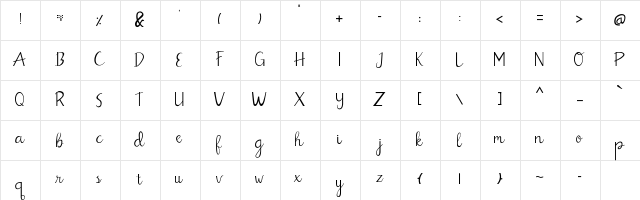
Billbo Regular
| Designer | SaberStudio 2019 |
Design Context for Billbo Typeface
Billbo is a composed and adaptable typeface that performs quietly and consistently across a wide range of design contexts.